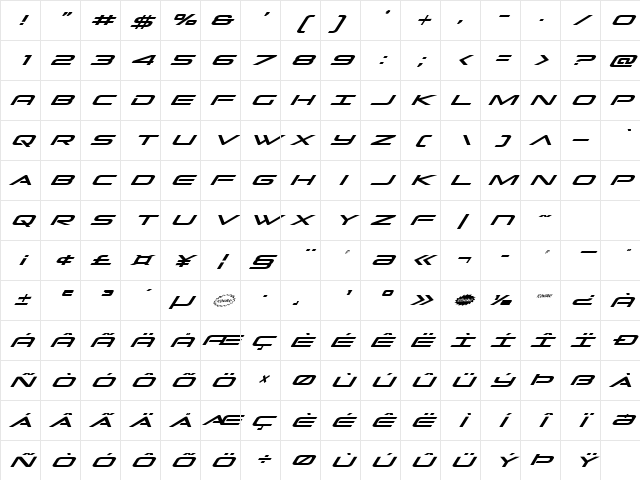
Complete Grand Sport Condensed Italic glyph index. Displaying only characters natively supported by Grand Sport Condensed Italic font.
Grand Sport Condensed Italic brings high-energy athletic personality to the page - its confident, muscular forms are built for impact. The slanted form adds forward momentum and visual energy. Its narrow stance lets it pack a punch even in space-constrained designs.